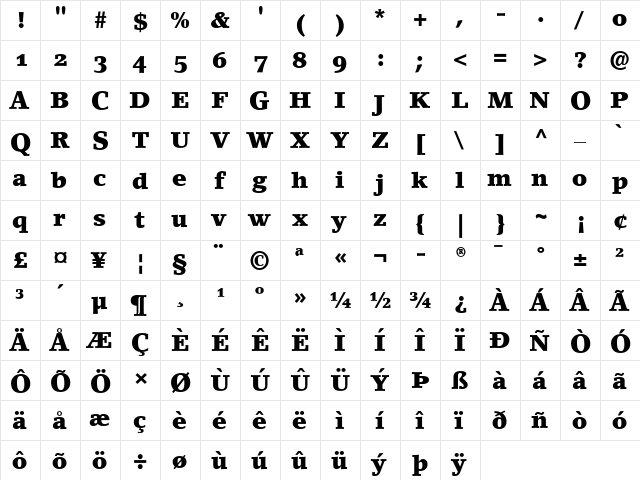
LinoLetter MediumOsF Bold
Design Context for LinoLetter MediumOsF Typeface
LinoLetter MediumOsF offers clean, dependable letterforms without strong stylistic allegiance, making it a practical choice for designers who need flexibility. The heavy weight commands attention and anchors typographic hierarchies.